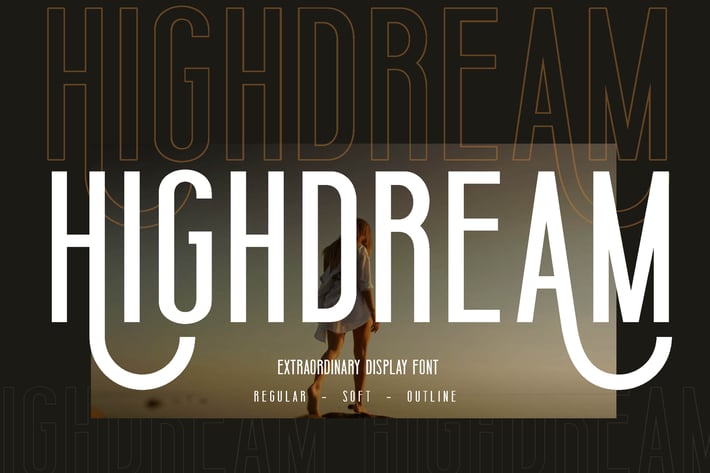
Highdream Business Font
Highdream is elegant and modern sans serif font family. It can easily be matched to an incredibly large set of projects, so add it to your creative ideas and notice how it makes them stand out!